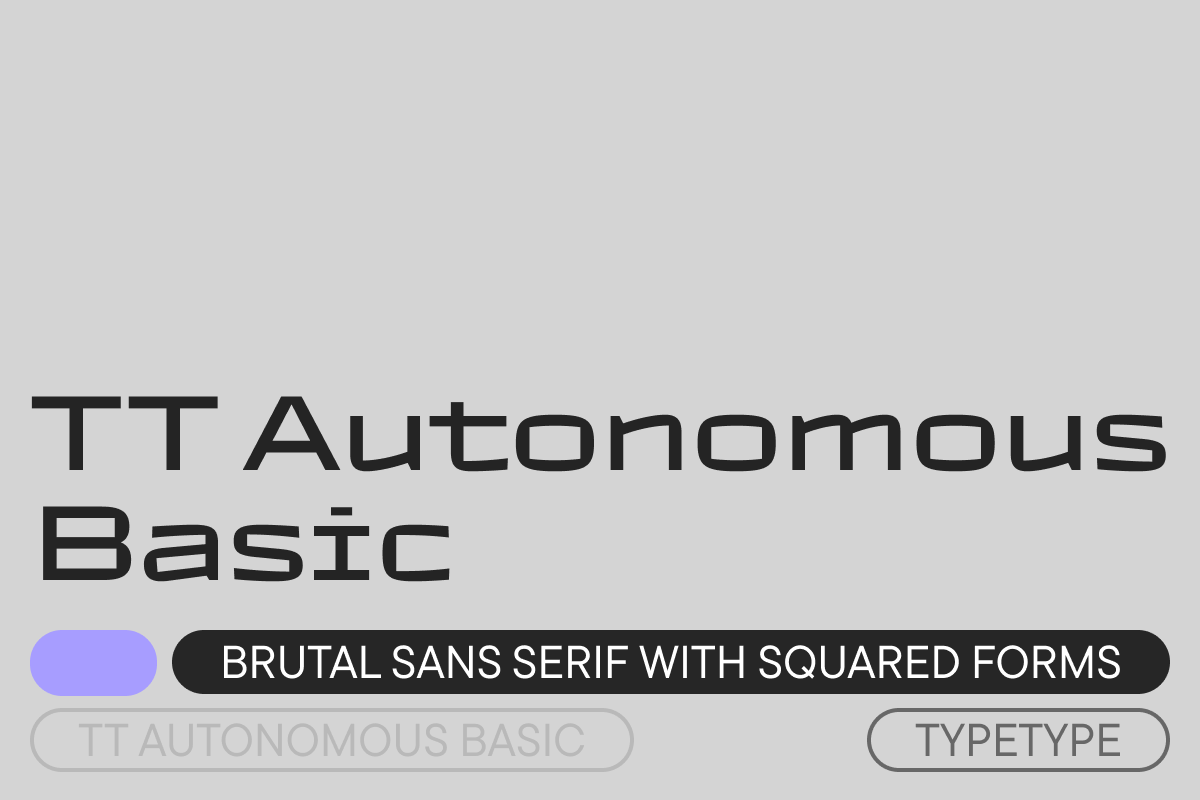
TT Autonomous Regular
TT Autonomous is a modern brutal technological sans serif. The basic visual characteristic of the typeface is the noticeable squareness of the characters and angular internal space. In addition, the typeface proportions tend to appear monospaced, but they are not really monospaced. The width of the characters is inspired by automobile logotype proportions, which are mostly rather wide.